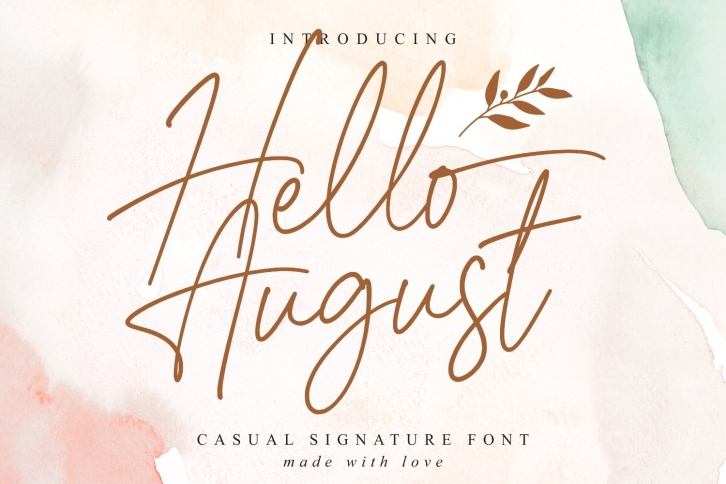
Introducing Hello August; An authentic and casual signature font with handwritten style.
Hello August feels incredibly elegant and flowing. It looks stunning on wedding invitations, thank you cards, quotes, greeting cards, logos, business cards, and every other design which needs a handwritten touch.
It features a varying baseline, smooth lines, gorgeous glyphs, and stunning alternates.
Fall in love with its incredibly versatile style and use it to create spectacular designs!
Use this font for any crafting project that requires a personalized look!